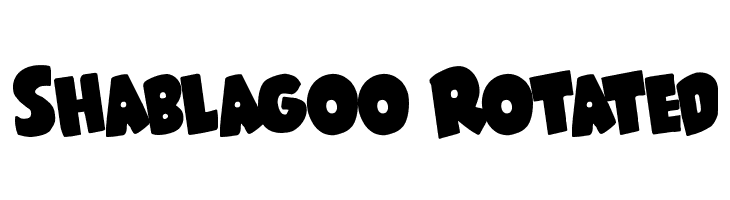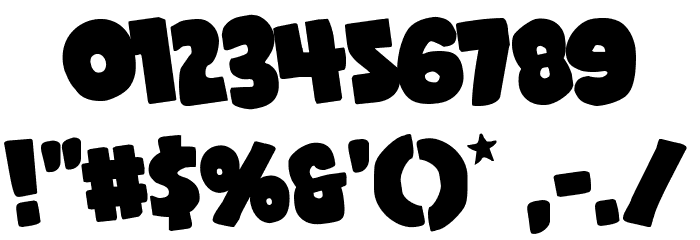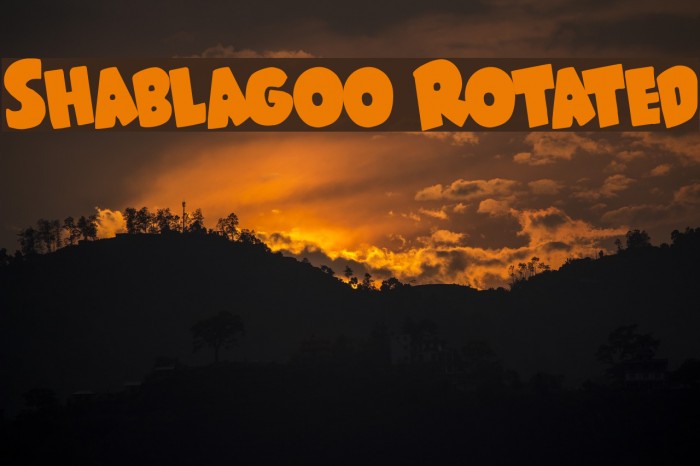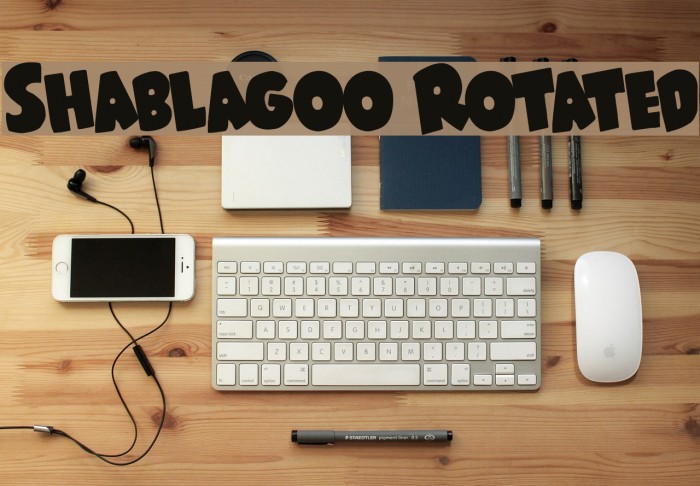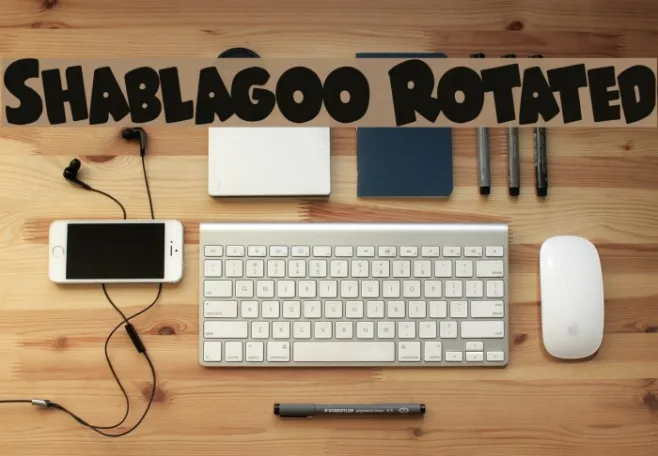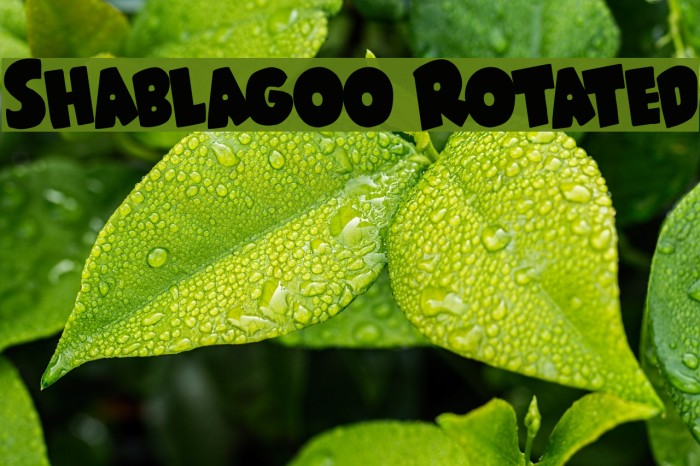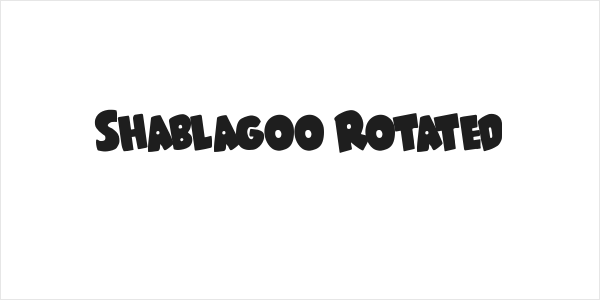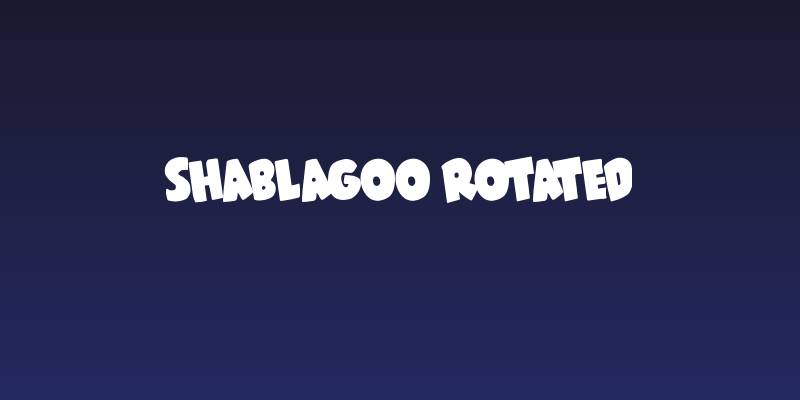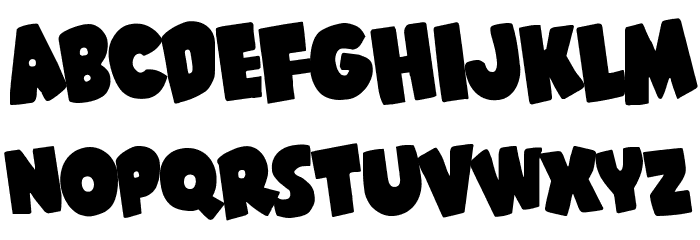
Shablagoo Rotated Font
Shablagoo Rotated Description
This font features bold, playful characters with a chunky, rounded appearance. The letters are heavily weighted, giving them a strong presence on the page. Each character is distinct, with exaggerated curves and a slightly irregular shape that adds to its whimsical charm. The font is highly legible, making it suitable for eye-catching designs. Its unique style is perfect for projects that require a fun and engaging look, such as children's books, posters, or branding for playful products. The overall design is consistent, with a uniform thickness across all characters, ensuring a cohesive appearance.
| Proposed Projects | Ideal for children's books, playful branding, posters, and eye-catching designs. |